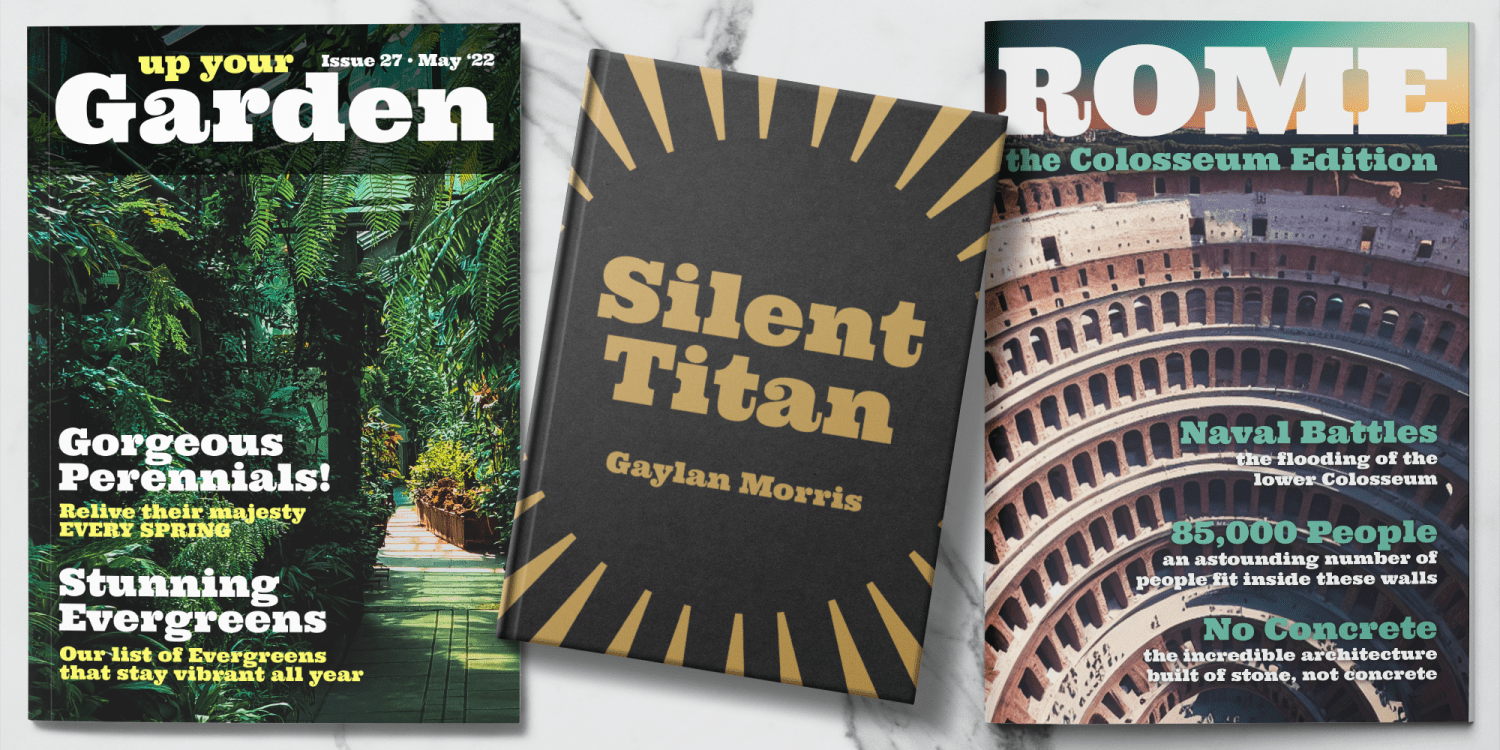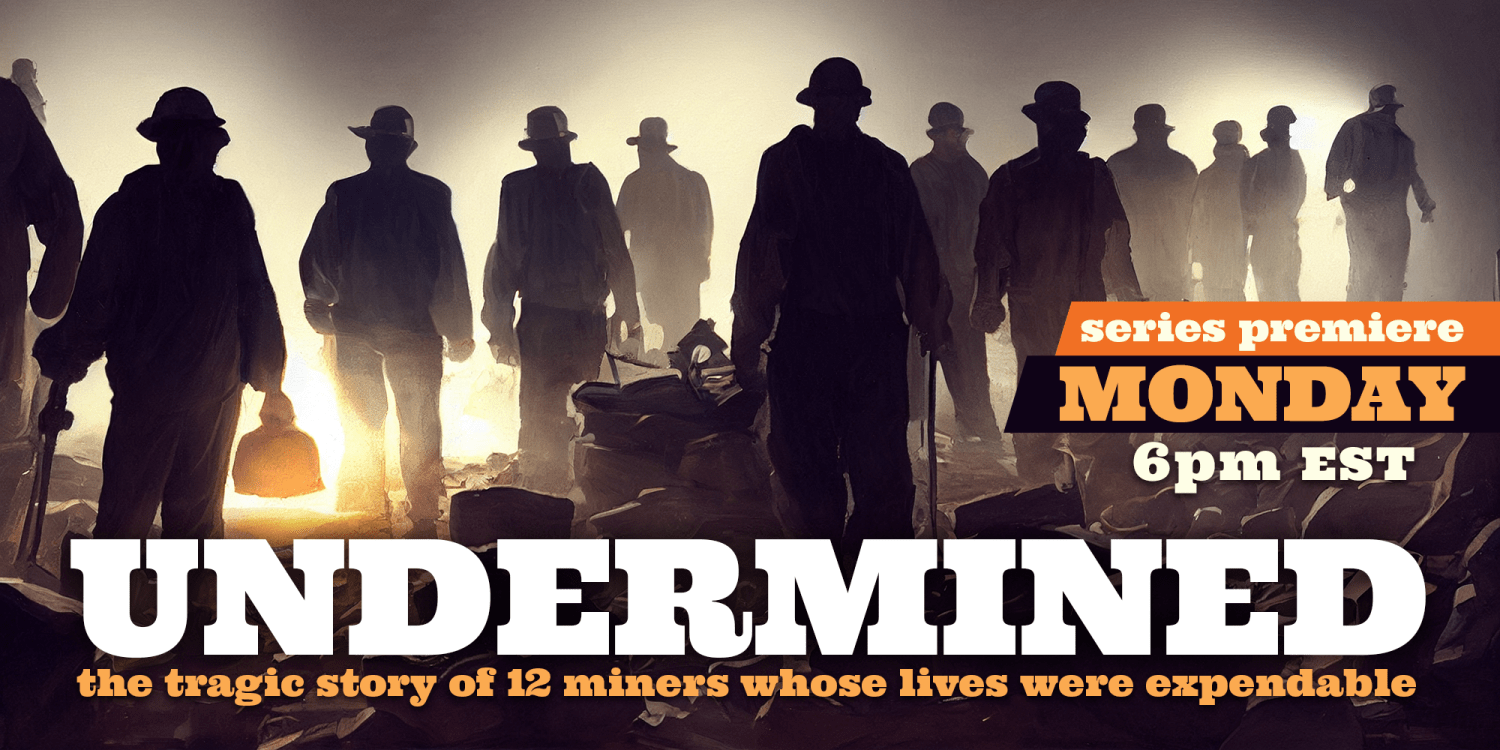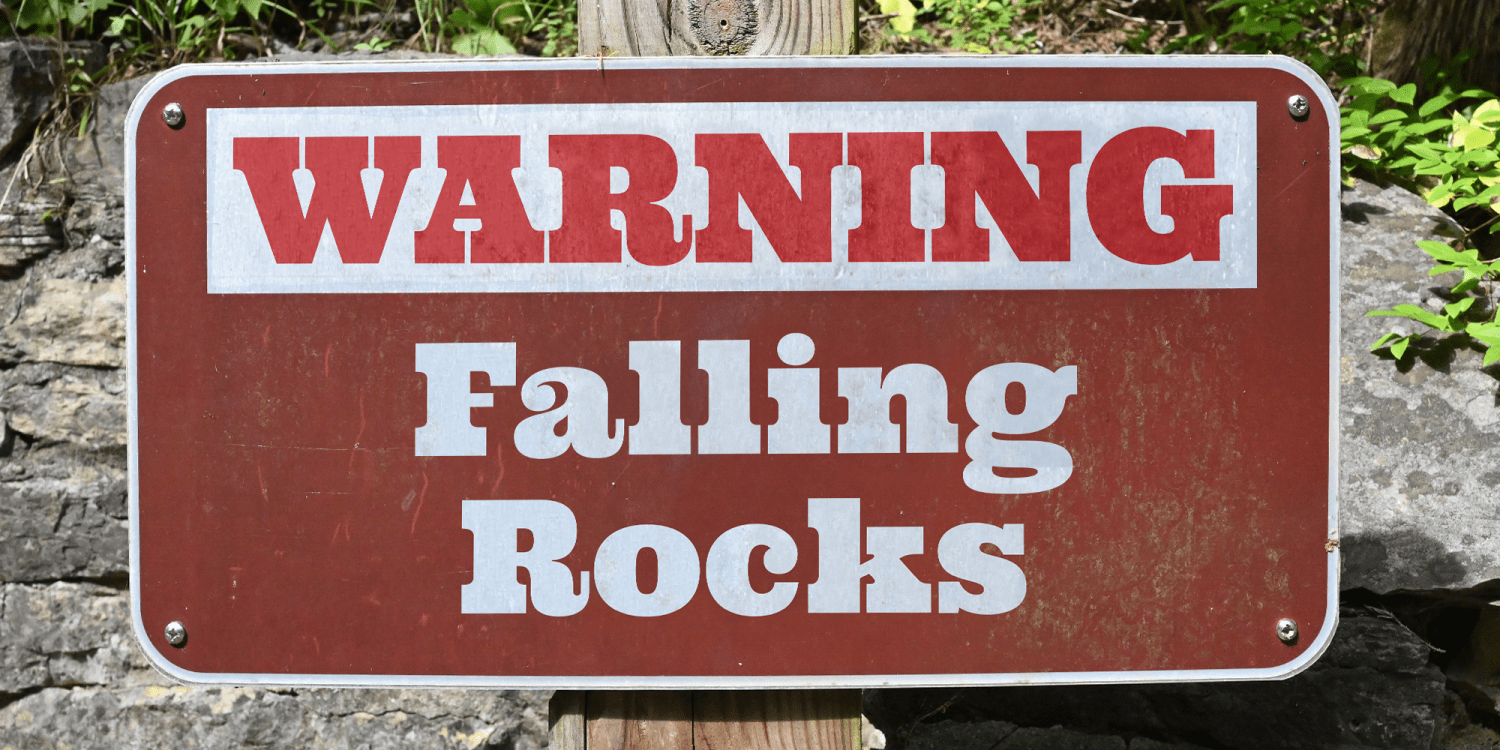
Our Ultra Pro is an ultra bold slab typeface with nods to wood type styles like Clarendon and Egyptian. Its powerful and dramatic letterforms are both serious in form but friendly in appearance yet it is still easily legible. Perfect for power headlines…